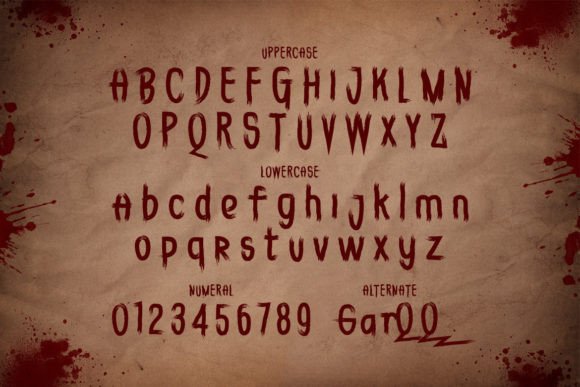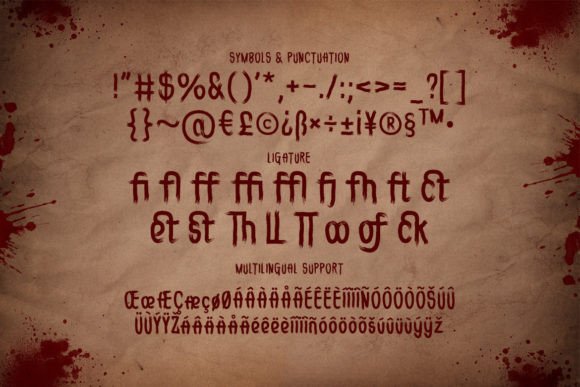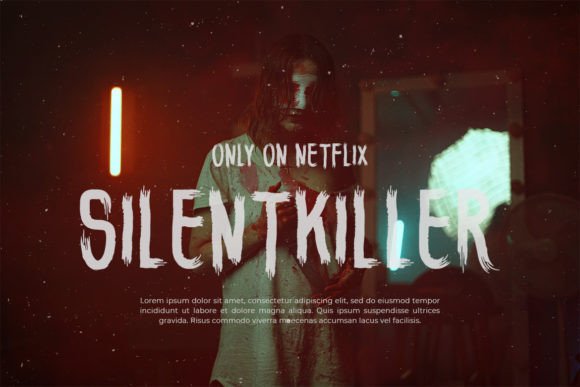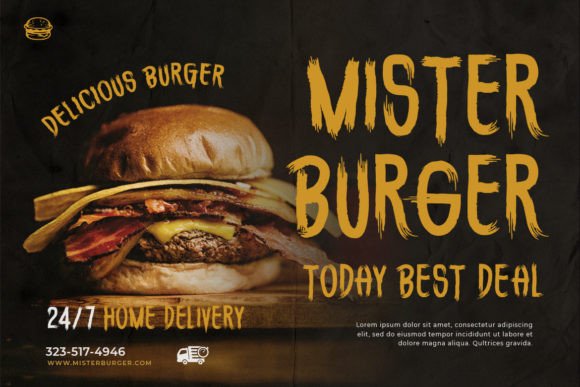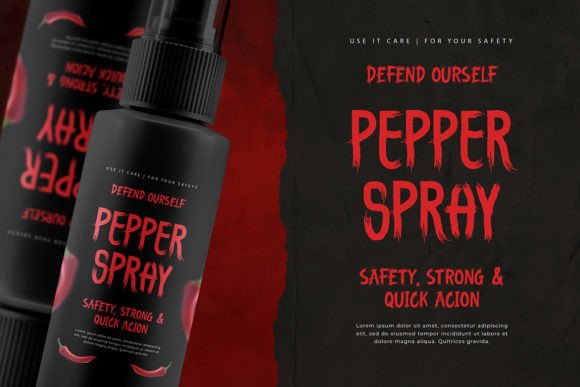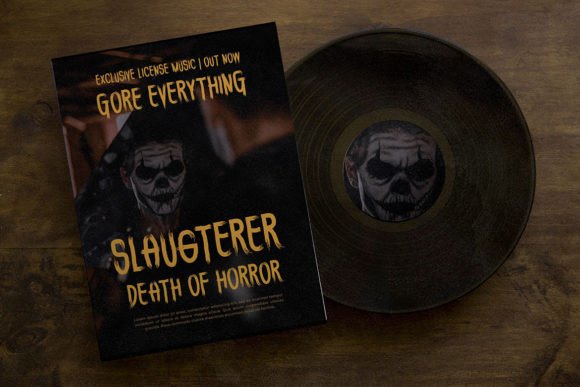
Unleash the Horror with Butcher Font: The Ultimate Display Font for Dark and Scary Creations
Are you a designer or crafter looking for a font that can add a touch of horror and darkness to your creations? Look no further than the Butcher Font. This display font is specifically designed to make a statement, with a bold and eerie style that’s perfect for scary crafts, horror movie posters, t-shirts, and any other project that requires a spectacular look.
What is Butcher Font?
Butcher Font is a dark, horror-looking display font that’s designed to evoke a sense of fear and unease. With its bold and rugged appearance, it’s the perfect choice for anyone looking to add a touch of horror to their designs. Whether you’re creating a spooky poster, a creepy t-shirt, or a haunted craft, Butcher Font is the perfect choice.
Key Features of Butcher Font
- Dark and Horror-Looking Design: Butcher Font is designed to be bold and eerie, making it perfect for horror-themed designs.
- Display Font: Butcher Font is a display font, making it perfect for headlines, titles, and other large text elements.
- High-Quality Design: Butcher Font is designed with high-quality graphics, ensuring that it looks great in any size or resolution.
- Easily Customizable: Butcher Font is easy to customize, allowing you to adjust the font to fit your specific design needs.
Uses for Butcher Font
Butcher Font is a versatile font that can be used for a wide range of projects, including:
- Horror Movie Posters: Add a touch of horror to your movie posters with Butcher Font.
- Scary Crafts: Use Butcher Font to add a spooky touch to your crafts, such as haunted houses, creepy dolls, or scary artwork.
- T-Shirts and Apparel: Create spooky t-shirts and apparel with Butcher Font.
- Halloween and Horror-Themed Designs: Use Butcher Font to create spooky designs for Halloween and horror-themed events.
Why Choose Butcher Font?
There are many fonts available that claim to be horror-themed, but Butcher Font stands out from the rest. Here are just a few reasons why:
- Unique Design: Butcher Font has a unique design that’s unlike any other font on the market.
- High-Quality Graphics: Butcher Font is designed with high-quality graphics, ensuring that it looks great in any size or resolution.
- Easily Customizable: Butcher Font is easy to customize, allowing you to adjust the font to fit your specific design needs.
Tips for Using Butcher Font
Here are a few tips for using Butcher Font in your designs:
- Use it Sparingly: Butcher Font is a bold font, so use it sparingly to avoid overwhelming your design.
- Pair it with Other Fonts: Pair Butcher Font with other fonts to create a unique and interesting design.
- Have Fun: Most importantly, have fun with Butcher Font and be creative!